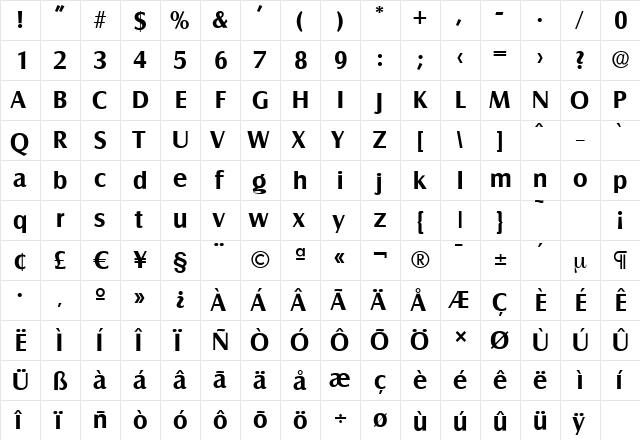
SalzburgSerial Bold
Design Context for SalzburgSerial Typeface
SalzburgSerial is a composed and adaptable typeface that performs quietly and consistently across a wide range of design contexts. The heavy weight commands attention and anchors typographic hierarchies.